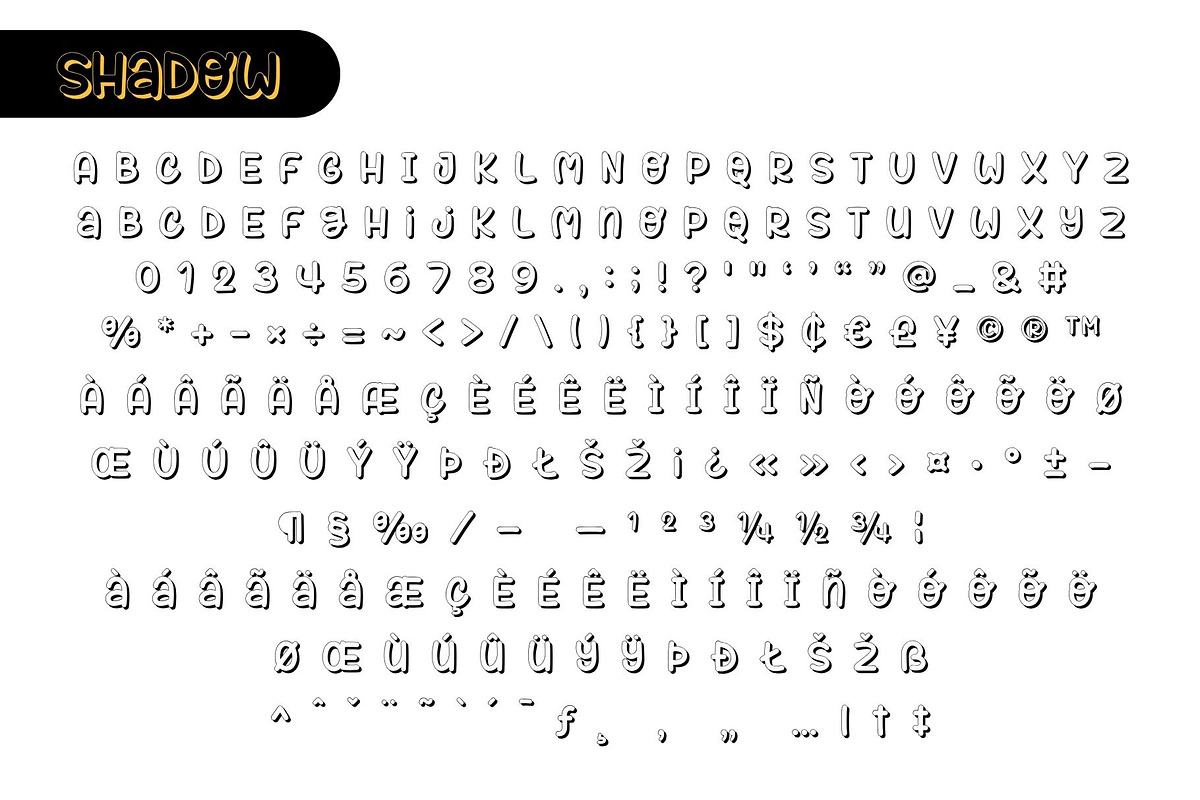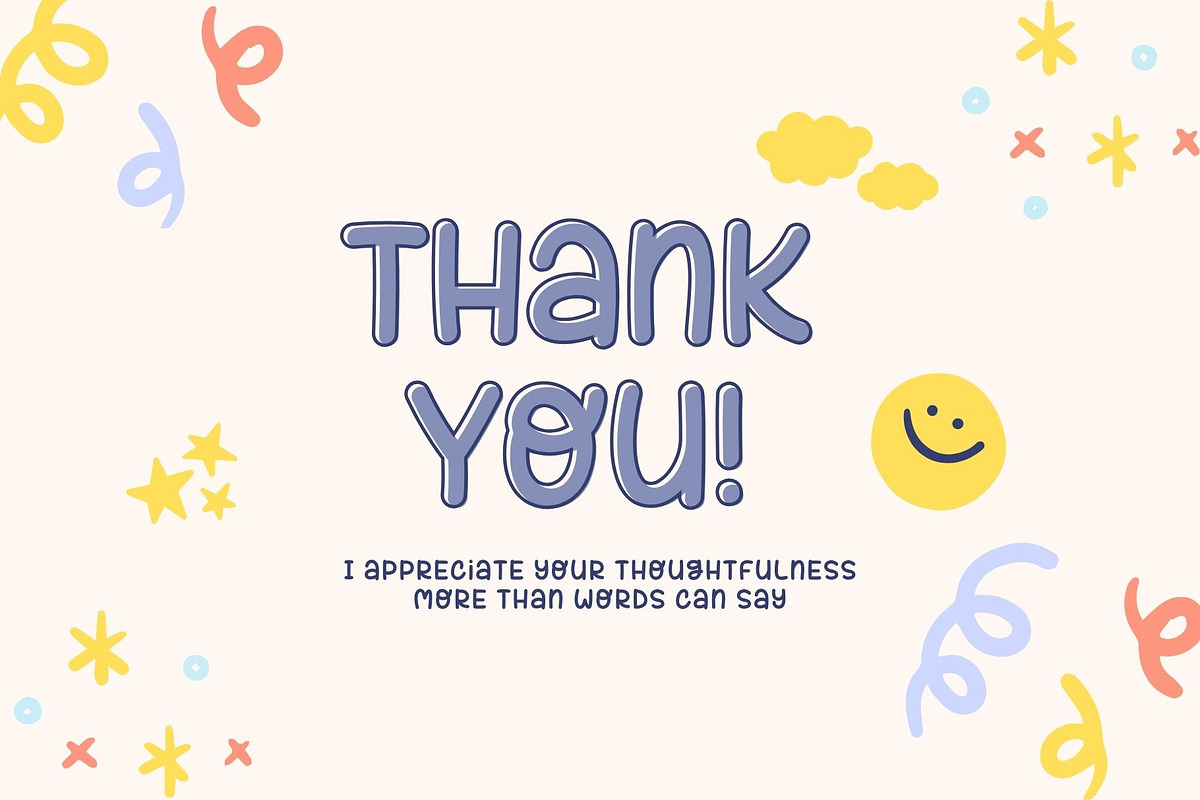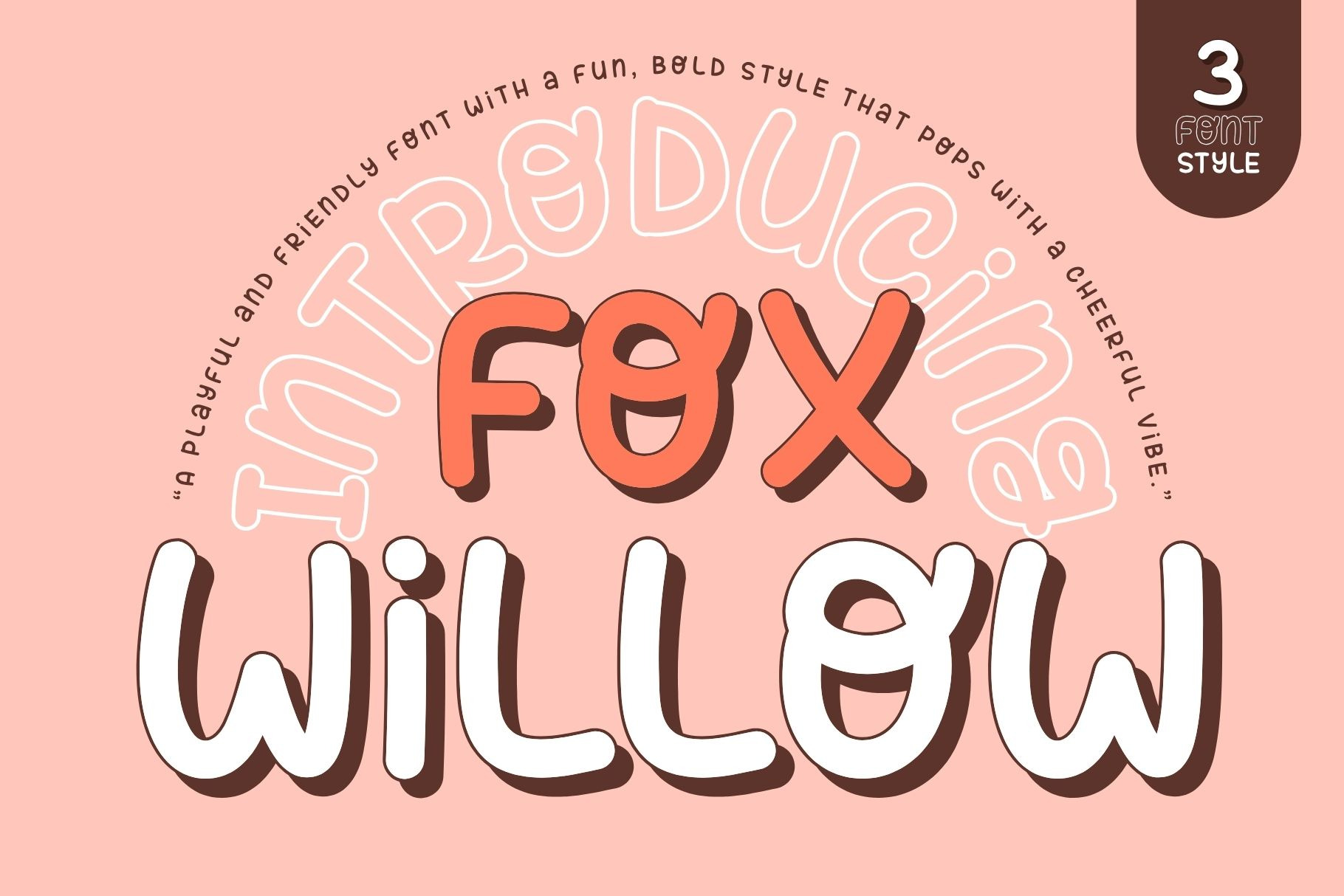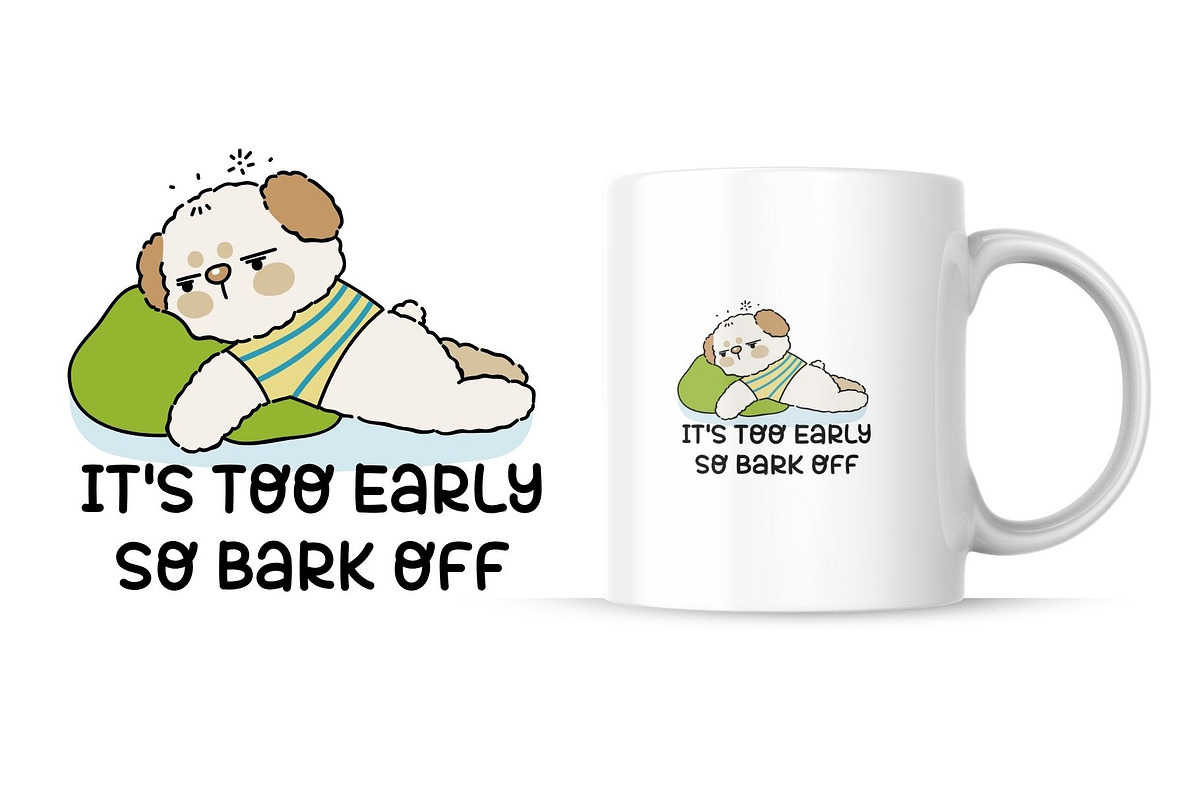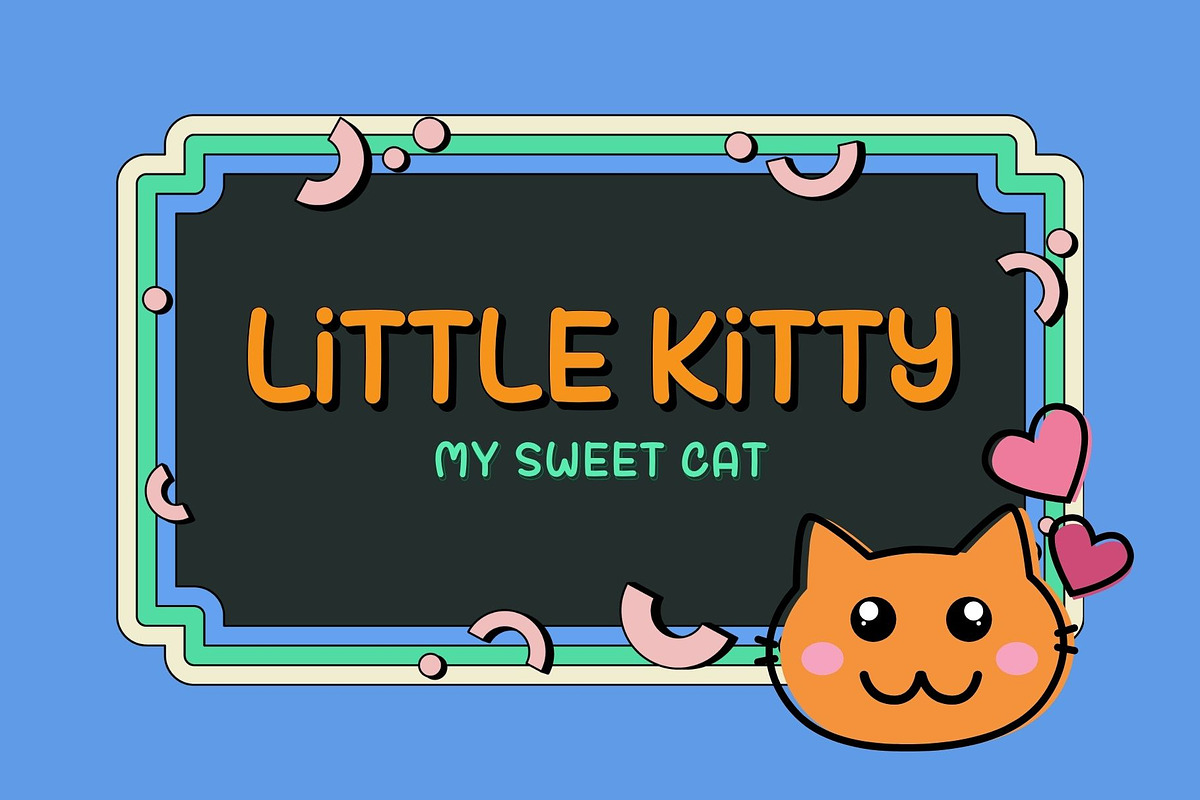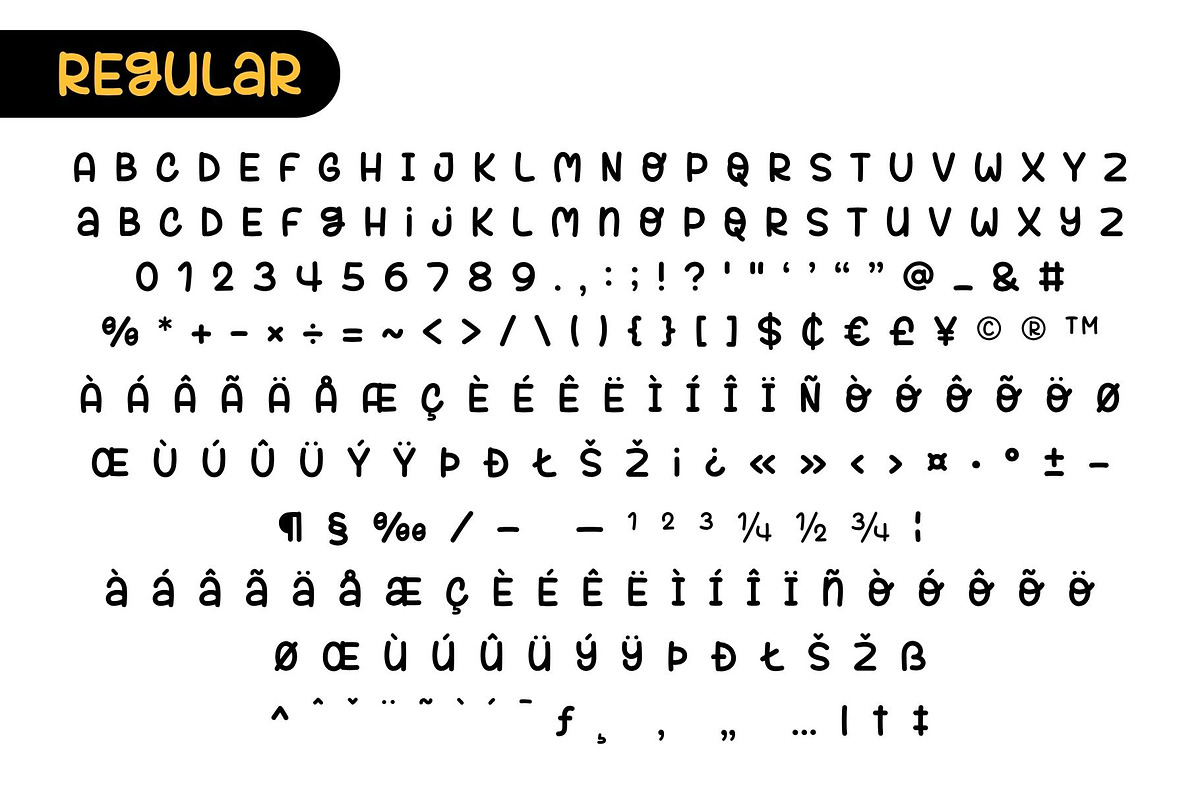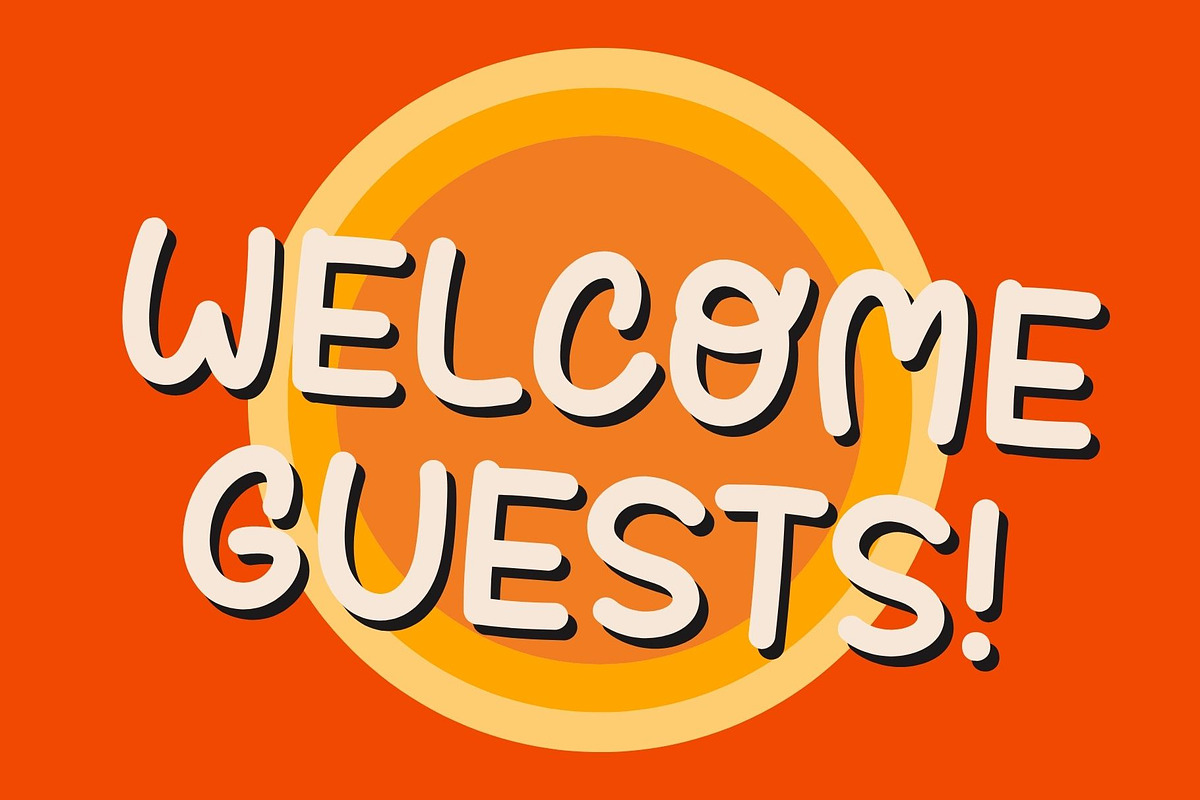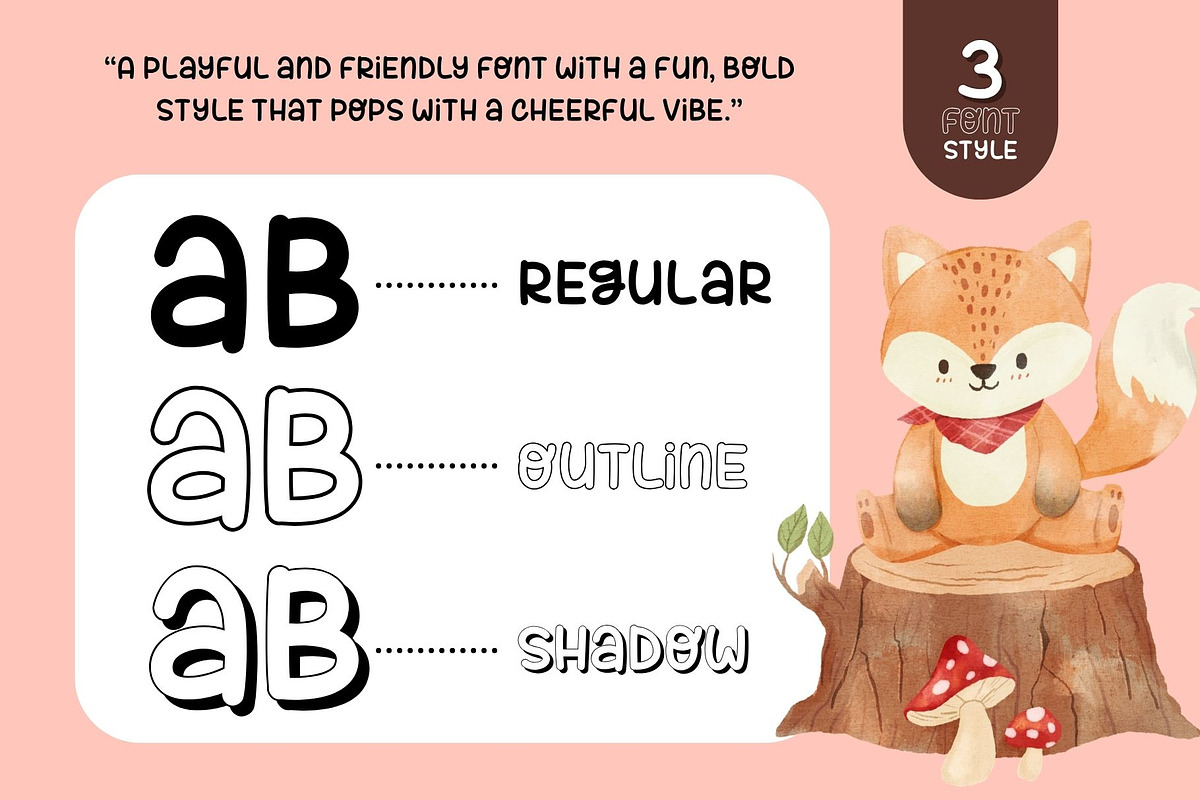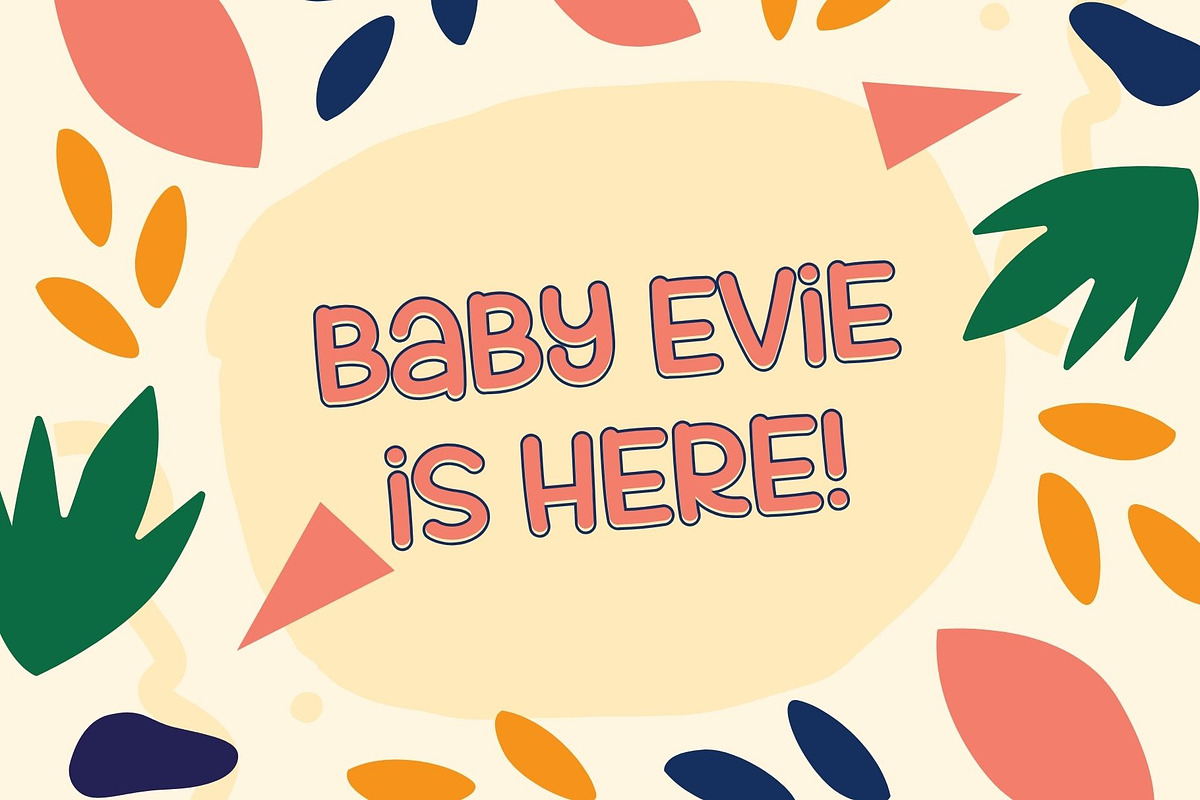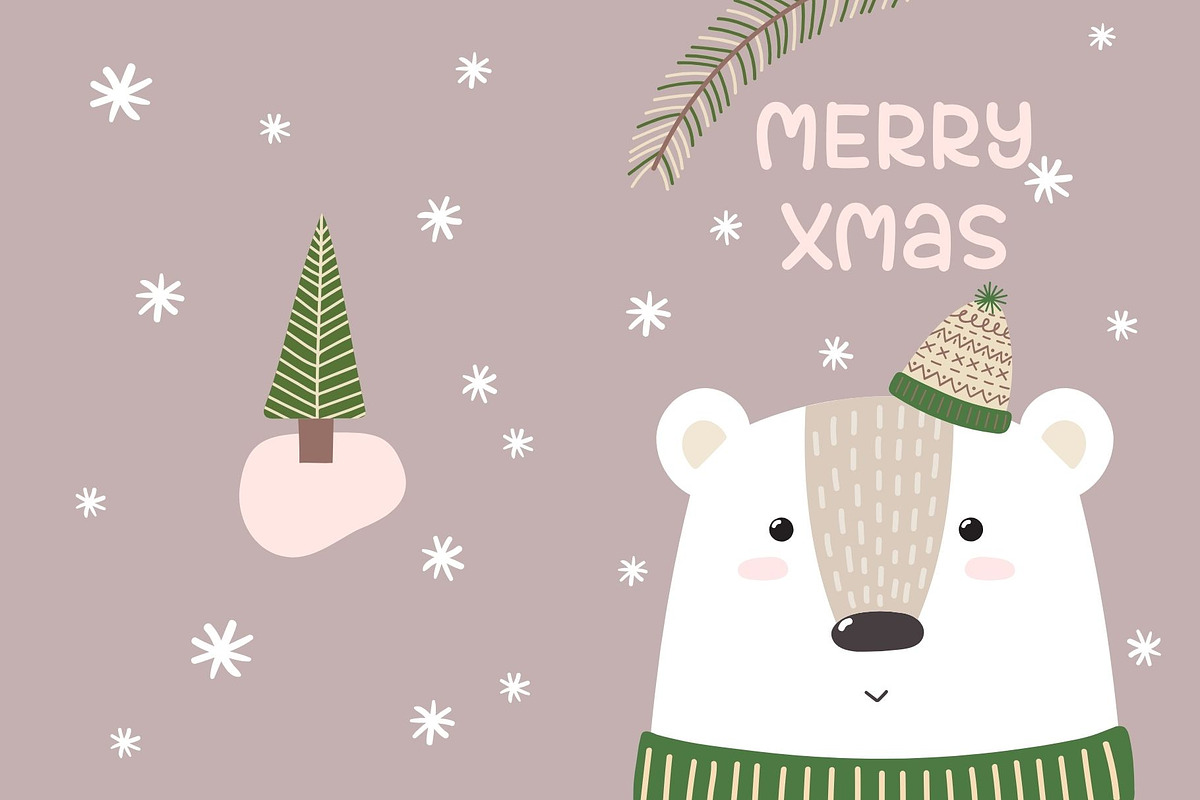
Fox Willow : 3 Font Styles
Fox Willow is a playful and friendly font with 3 charming styles —Regular, Outline, and Shadow—perfectly crafted for Kids branding, baby products, storybooks, quote prints, classroom materials, birthday invitations, stickers, and more!. With its bold curves and cheerful personality, this font family pops with warmth and positivity.